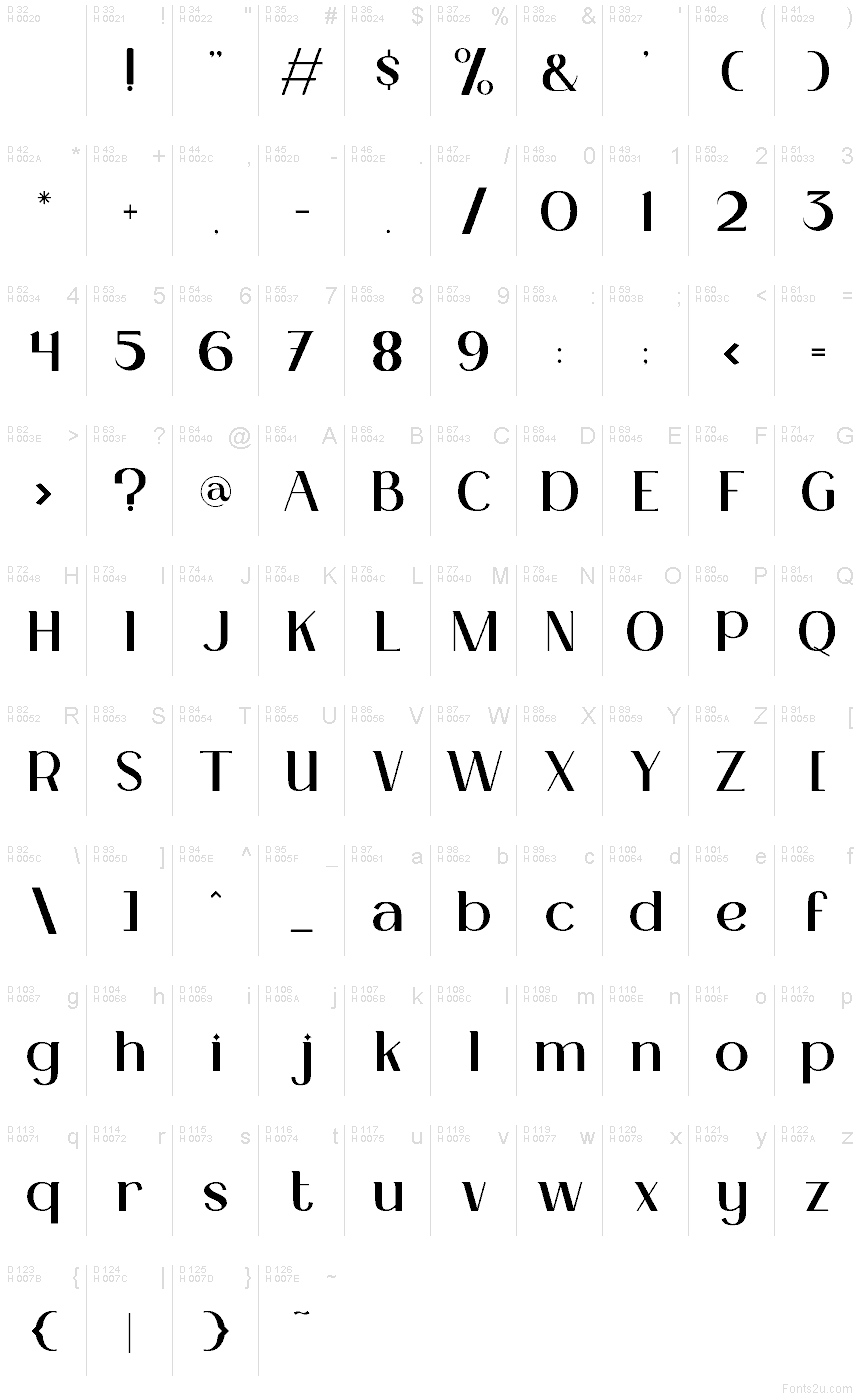
Mahalini
Mahalini font by PutraCetol Studio combines elegance with a sleek appearance. The free serif font has a modern style that consists of high-contrast letters where thin and thick parts come together harmoniously. The sophisticated mood of the typeface will be perfect for a branding project or any other graphic design to make it look exceptionally classy.
Luxurious and contemporary, this versatile font suits magazine designs, posters, social media posts (Instagram & Facebook), video covers/titles, book covers, website headers and subheadings; logo making (fashion brands, hotels); wedding stationery items (invitations), product packaging labels/tags.